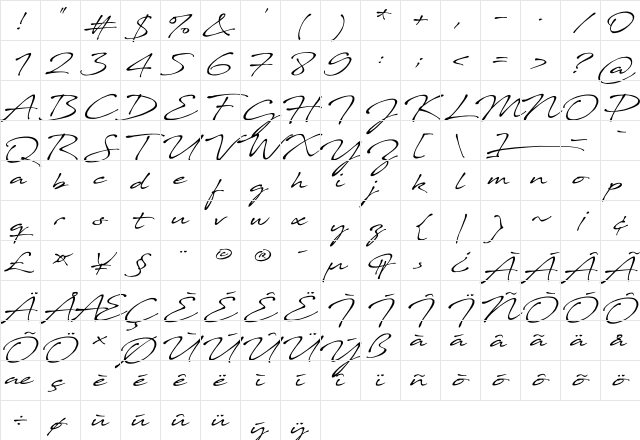
Javacom Regular Free Font
Javacom Regular
Foundry: Youssef Habchi
Designer: Youssef Habchi
Design Context for Javacom
Javacom is a composed and adaptable typeface that performs quietly and consistently across a wide range of design contexts.